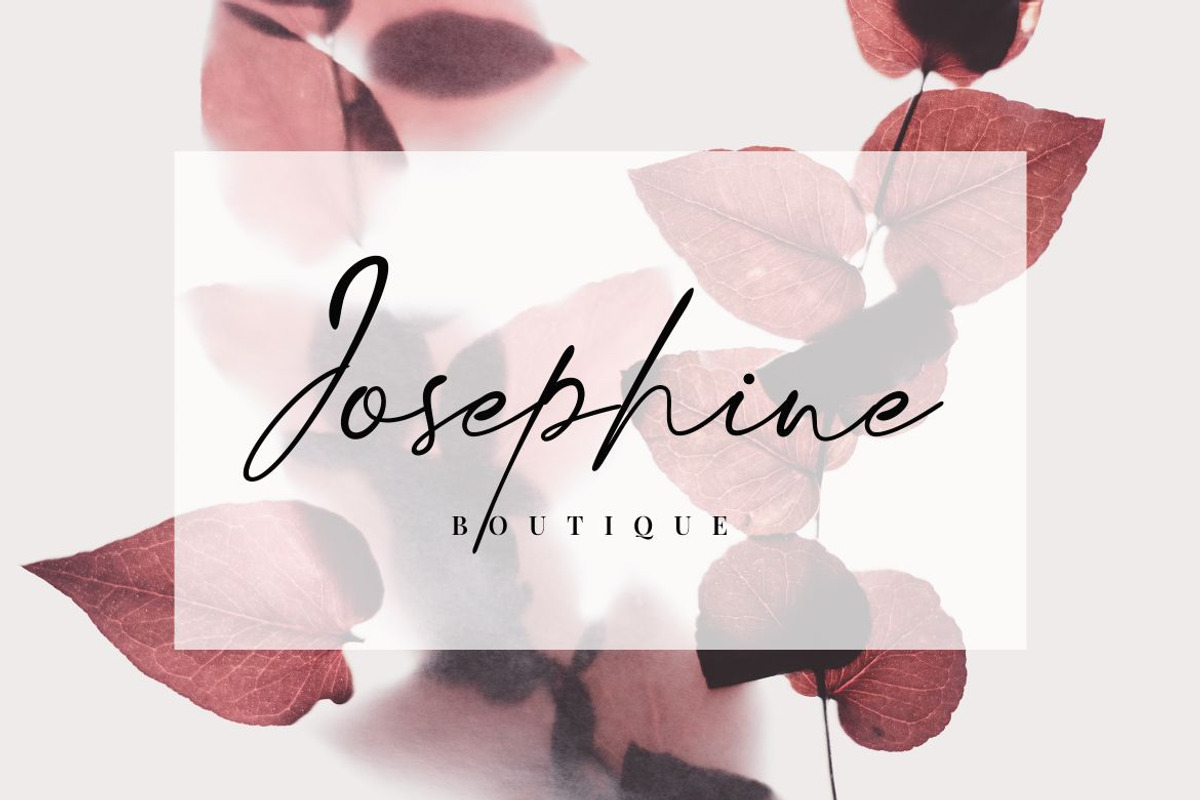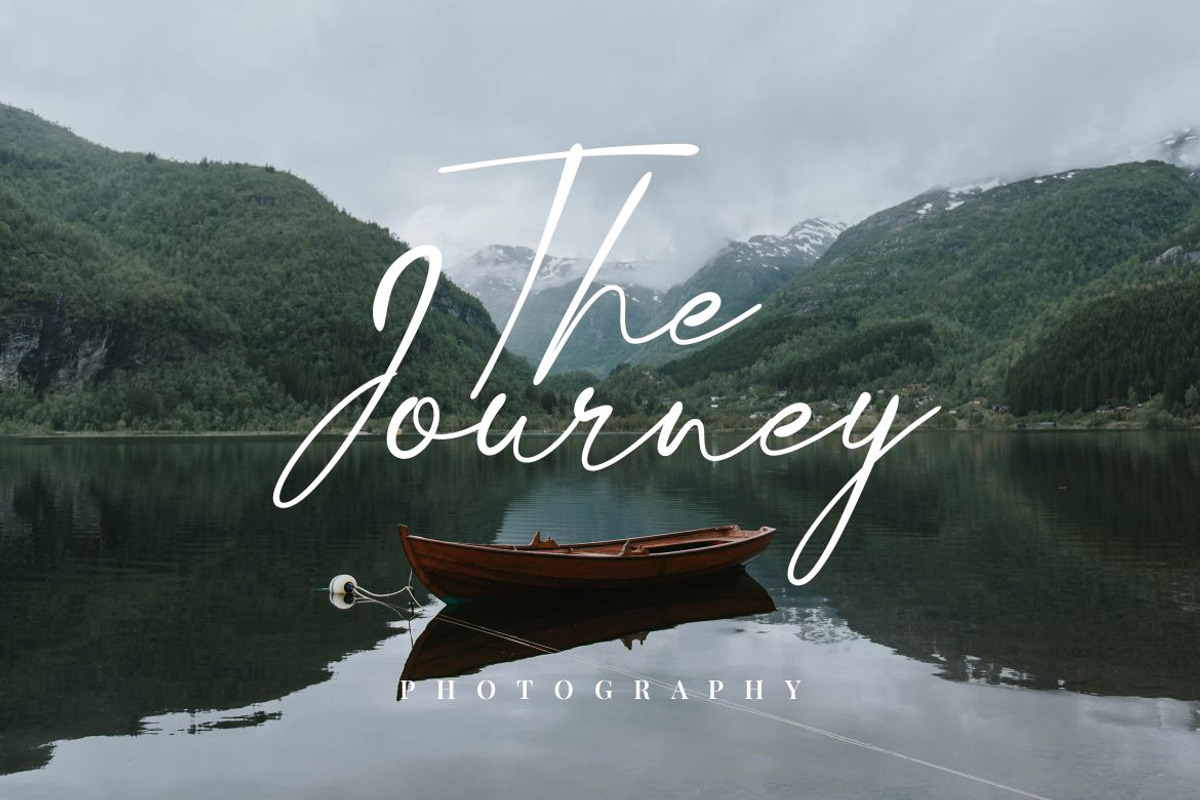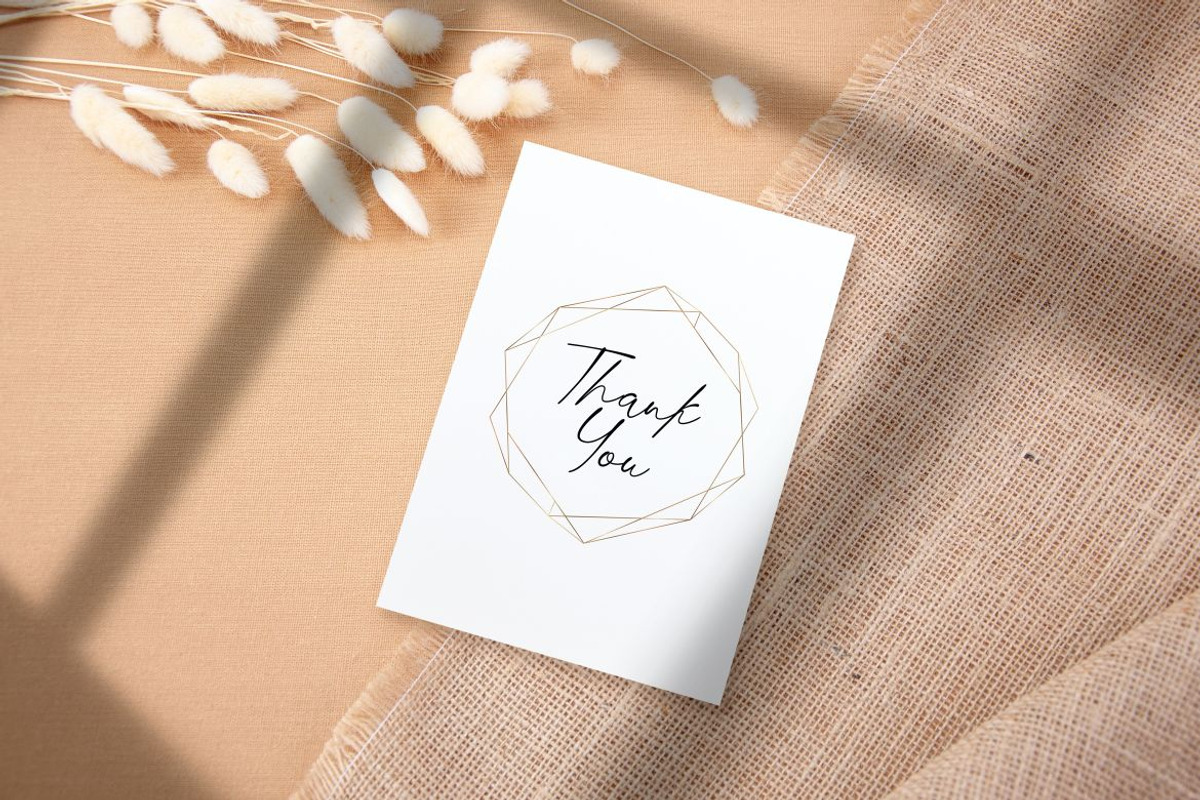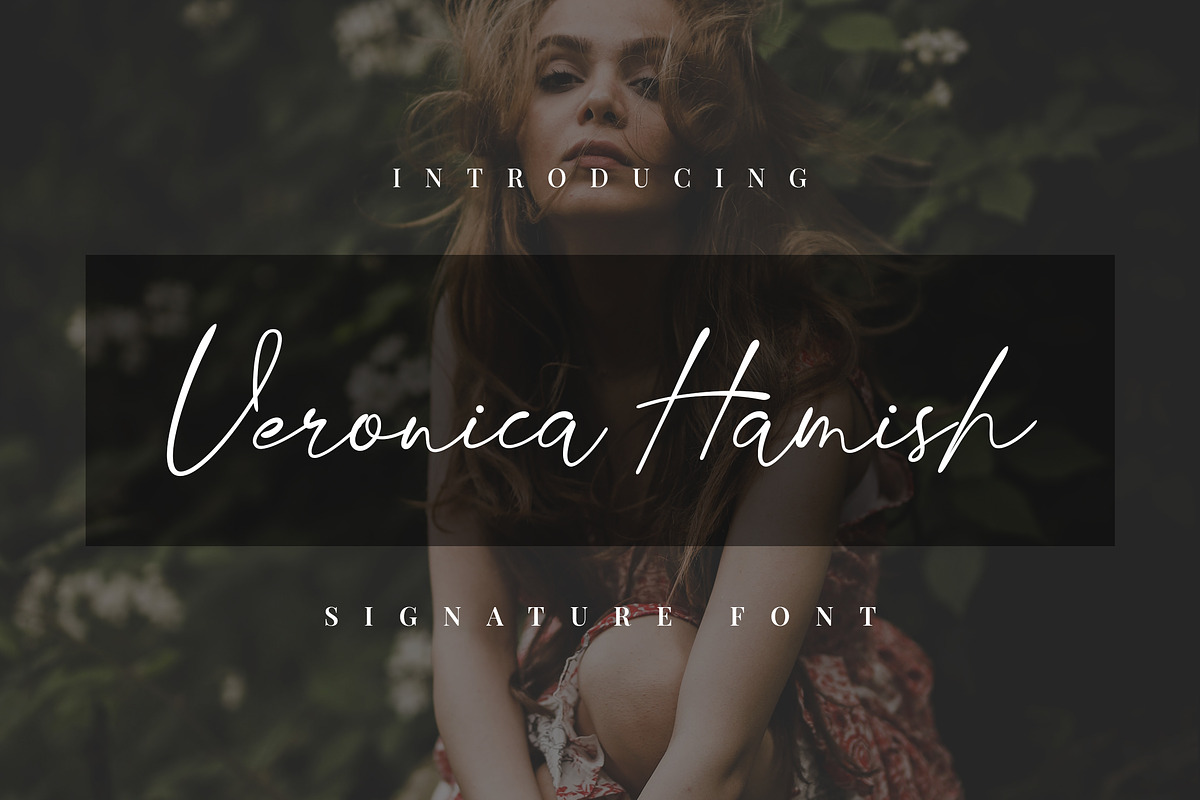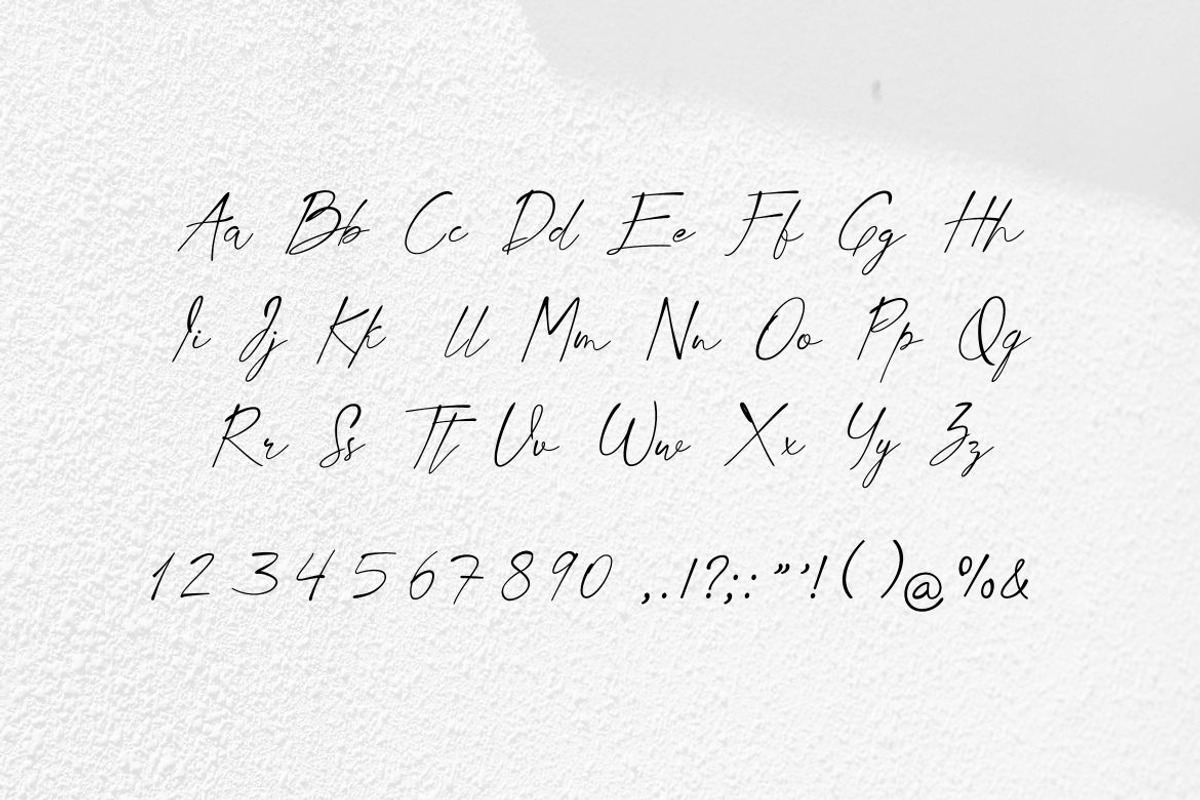
Veronica Hamish Signature Handwritte
Introducing our new product the name is Veronica Hamish Signature Handwritte. Modern Serif font that feels beautiful classy, elegant, and modern. This font is ideally suited for a wide variety of projects, such as signature, stationery, logo, wedding, typography quotes, magazine or book covers, website headers, clothing, branding, packaging design, and more. Also, fashion-related branding or editorial design displays both masculine and feminine qualities.